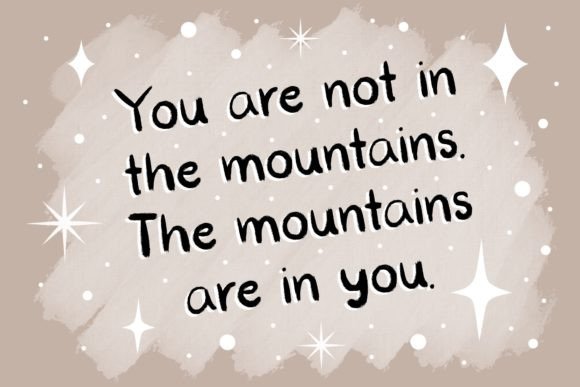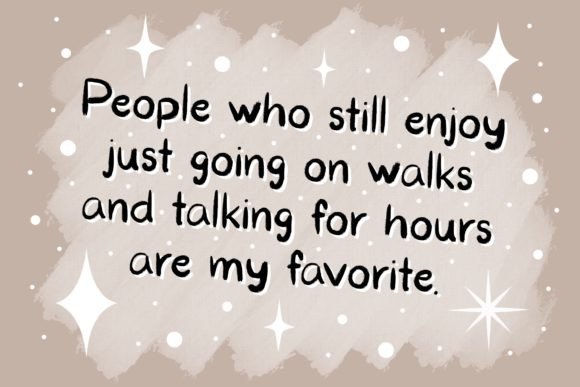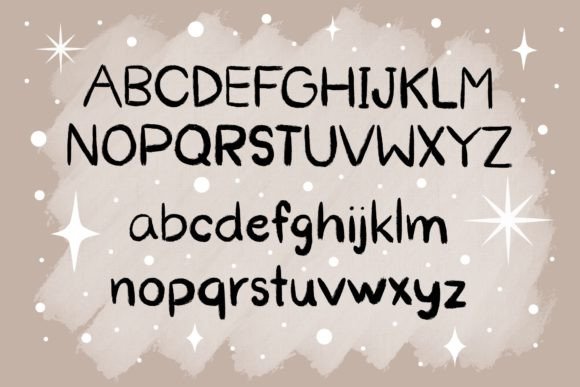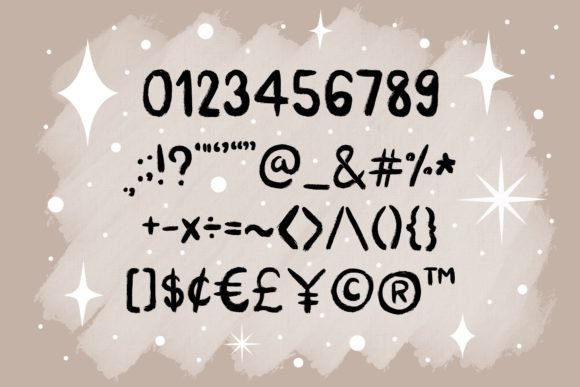
Introduction to Dewey Brush Font
Dewey Brush is a handwritten font.
With itโs charming style, it will elevate a wide range of design projects to the highest level, be it branding, headings, wedding designs, invitations, signatures, logos, labels, and much more .
Key Features of Dewey Brush Font